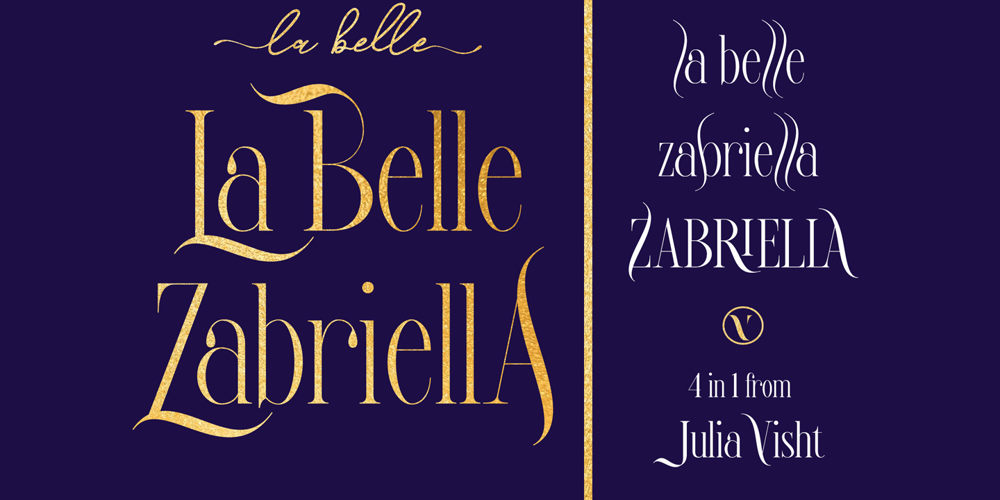
La Belle Zabriella
La Belle Zabriella font
La Belle Zabriella Font Family was designed by Julia Kruk and published by Julia Visht. La Belle Zabriella contains 4 styles and family package options. “La Belle Zabriella” – new elegant luxury font family from Julia Visht. Classical font collection: luxury modern Serif (Bold, Regular, Light) with stylish decorative elements and classy authentic Script! La Belle Zabriella is a must-have for your collection of fonts. Main features:-Ligatures. Set of opentype ligatures allows to make your design truly unique.-Alternates. Set of lowercase alternates allows you to create even more authentic custom-feel text.- OpenType Style Set. Open Type Style Sets allow to create many perfect styles of your text. -Multyfunctionality. It’s perfect for: elegant modern branding, web-design, logo creating, posters, headers, advertising, wedding stationery, book cover designs, classy packaging, album covers, handwritten quotes, greeting cards, wall art, websites, photos, and so much more.-Multylangual support. English, German, Italian, French, Danish, Norwegian, Swedish, Italian, Spanish, Filipino, Scottish Gaelic, Indonesian, Irish, Swiss German, Portuguese. Stylish font family for stylish projects!Happy creating!Designers: Julia KrukPublisher: Julia Visht